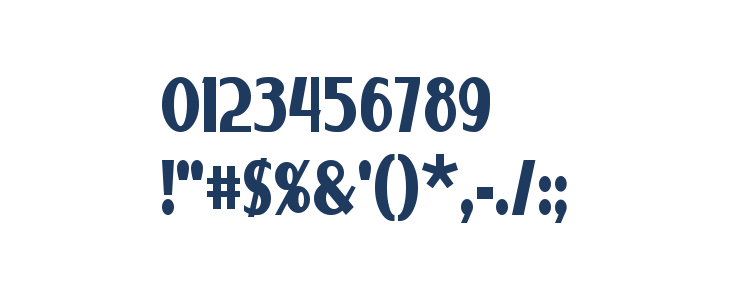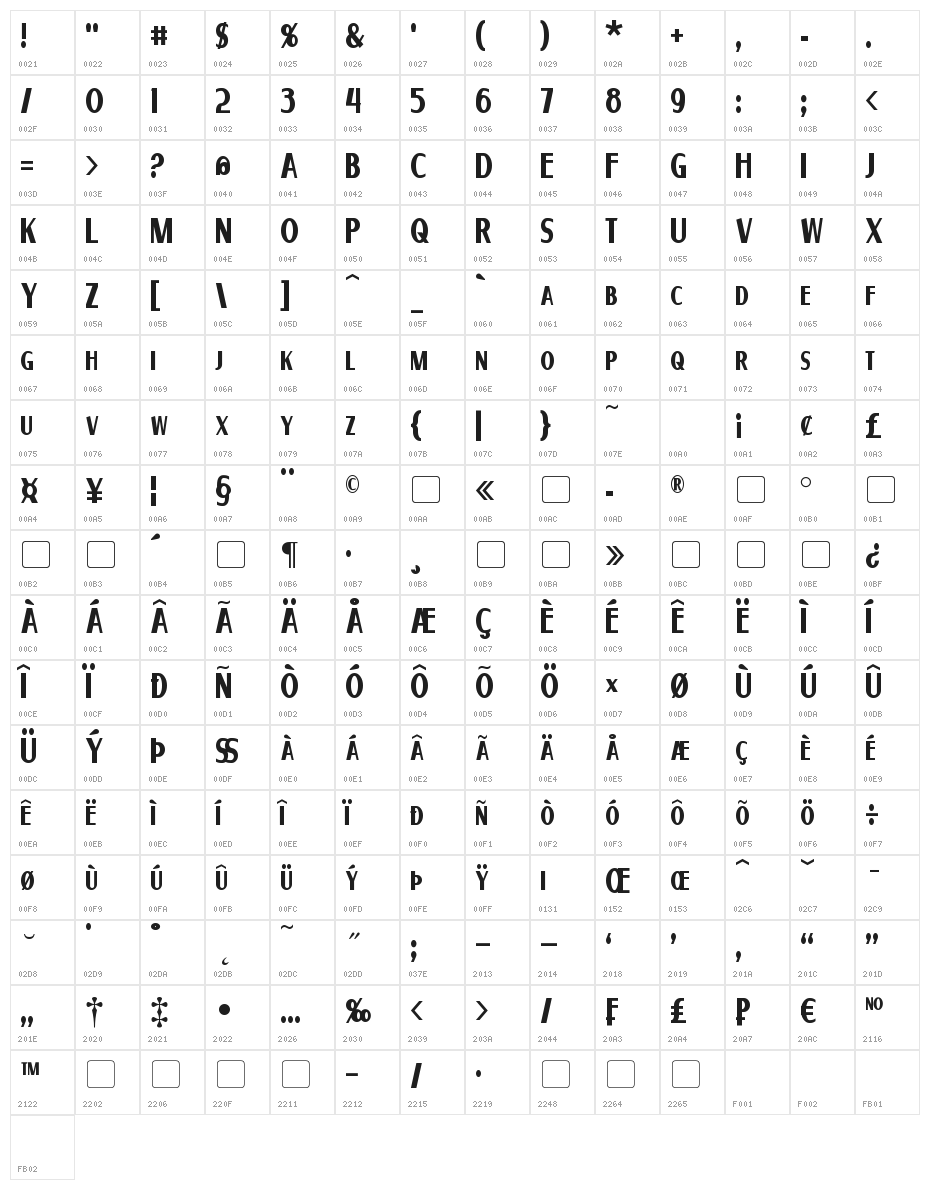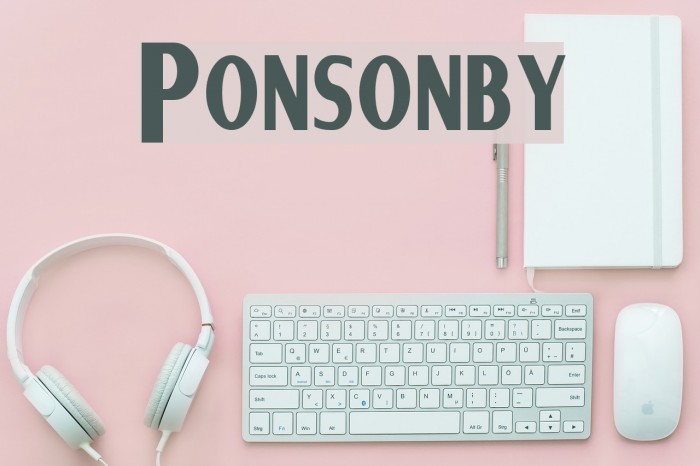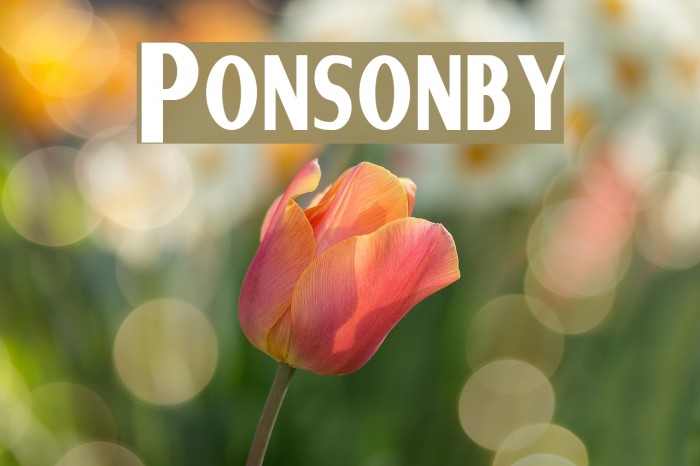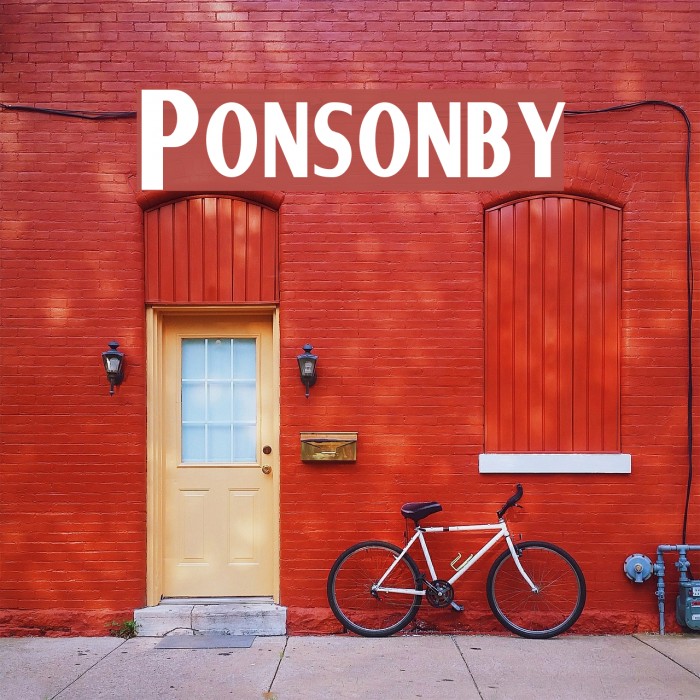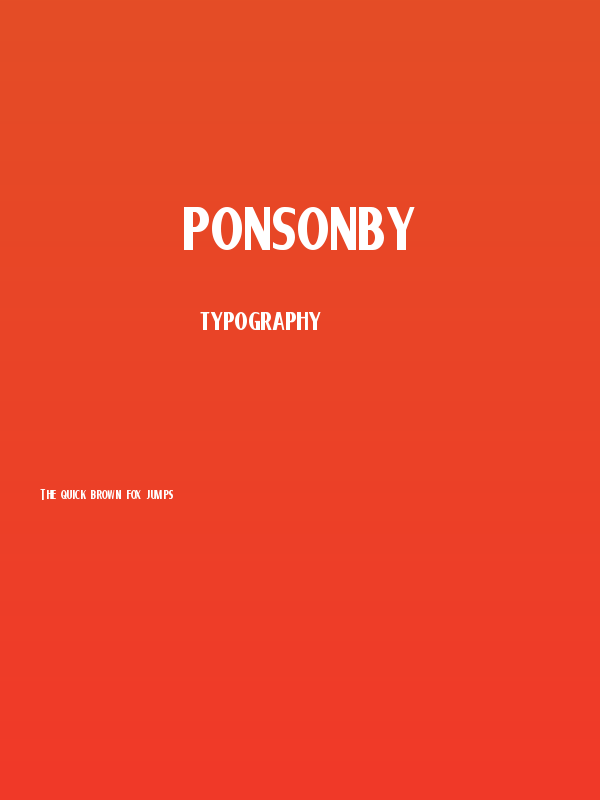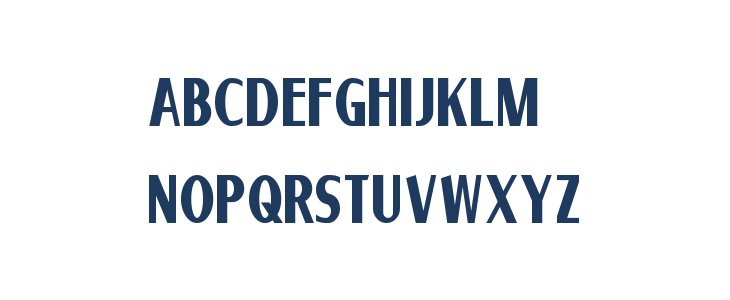
Ponsonby Font
Ponsonby Description
This font features a bold and striking design, characterized by its thick, uniform strokes and slightly condensed letterforms. The uppercase letters are particularly prominent, with a commanding presence that makes them ideal for attention-grabbing headlines. The lowercase letters maintain a consistent style, ensuring readability while retaining the bold aesthetic. The numerals are equally robust, matching the overall weight and style of the alphabet. Special characters are designed with the same boldness, ensuring they stand out in any context. The font's design is modern and impactful, making it suitable for a variety of applications where a strong visual statement is desired.